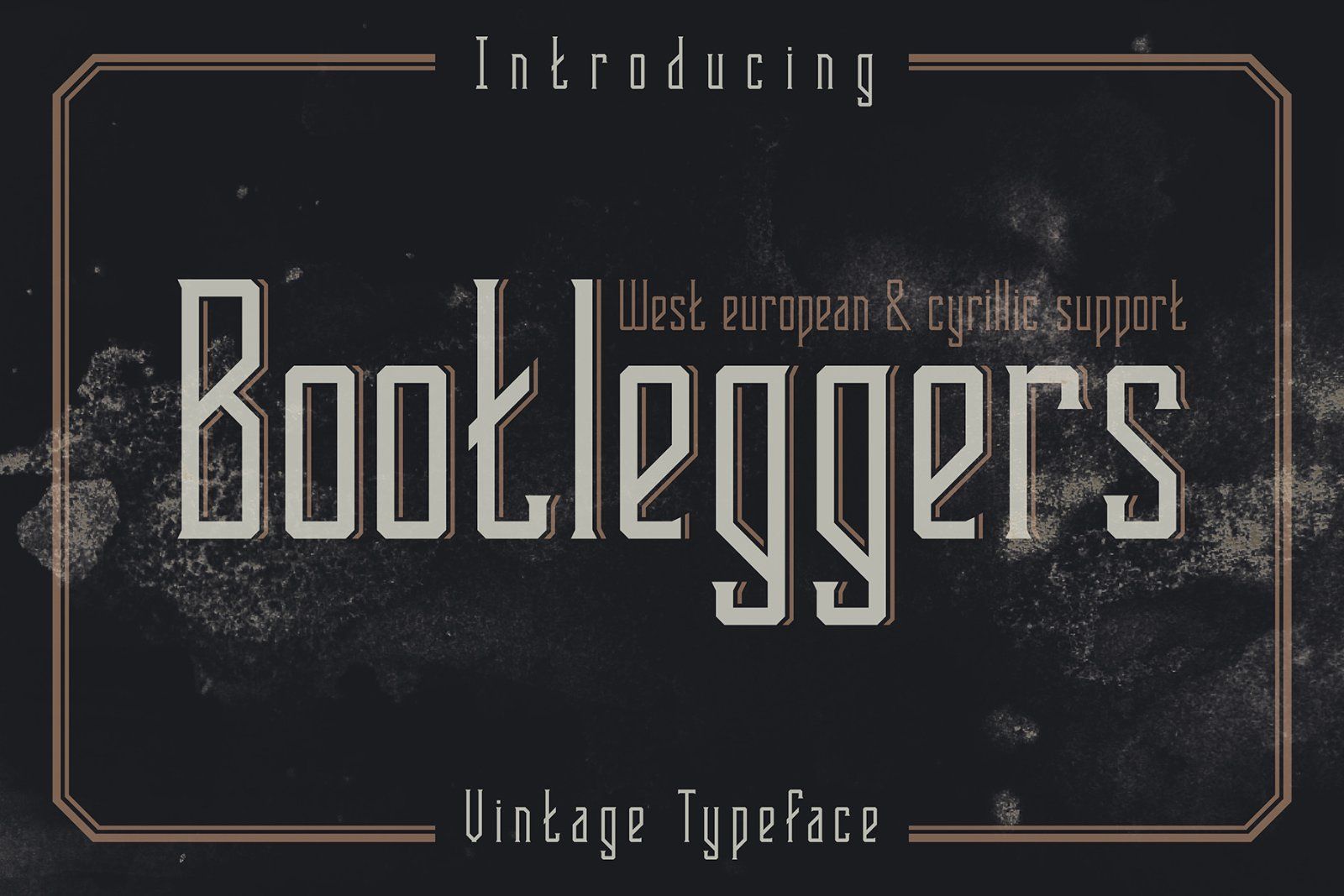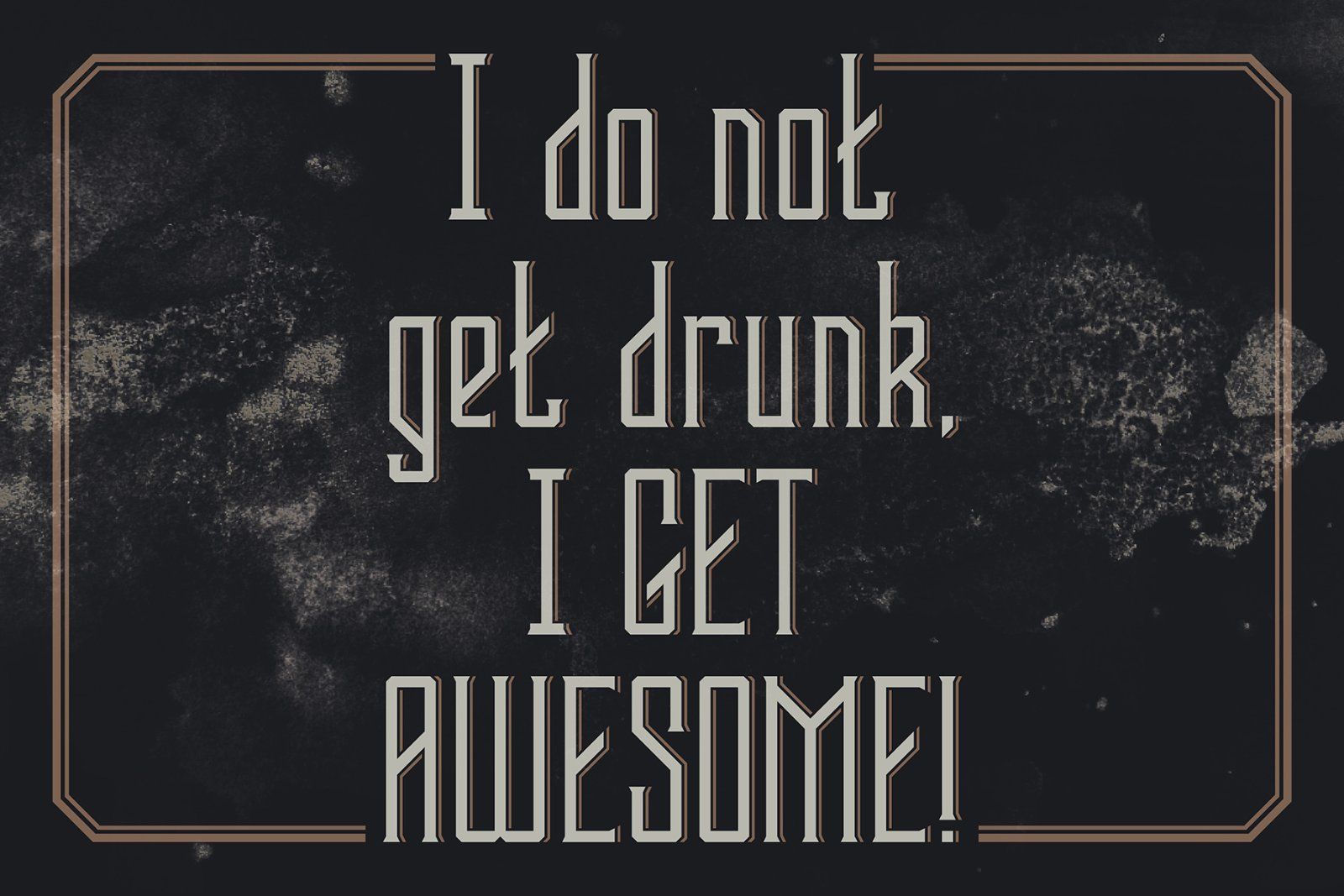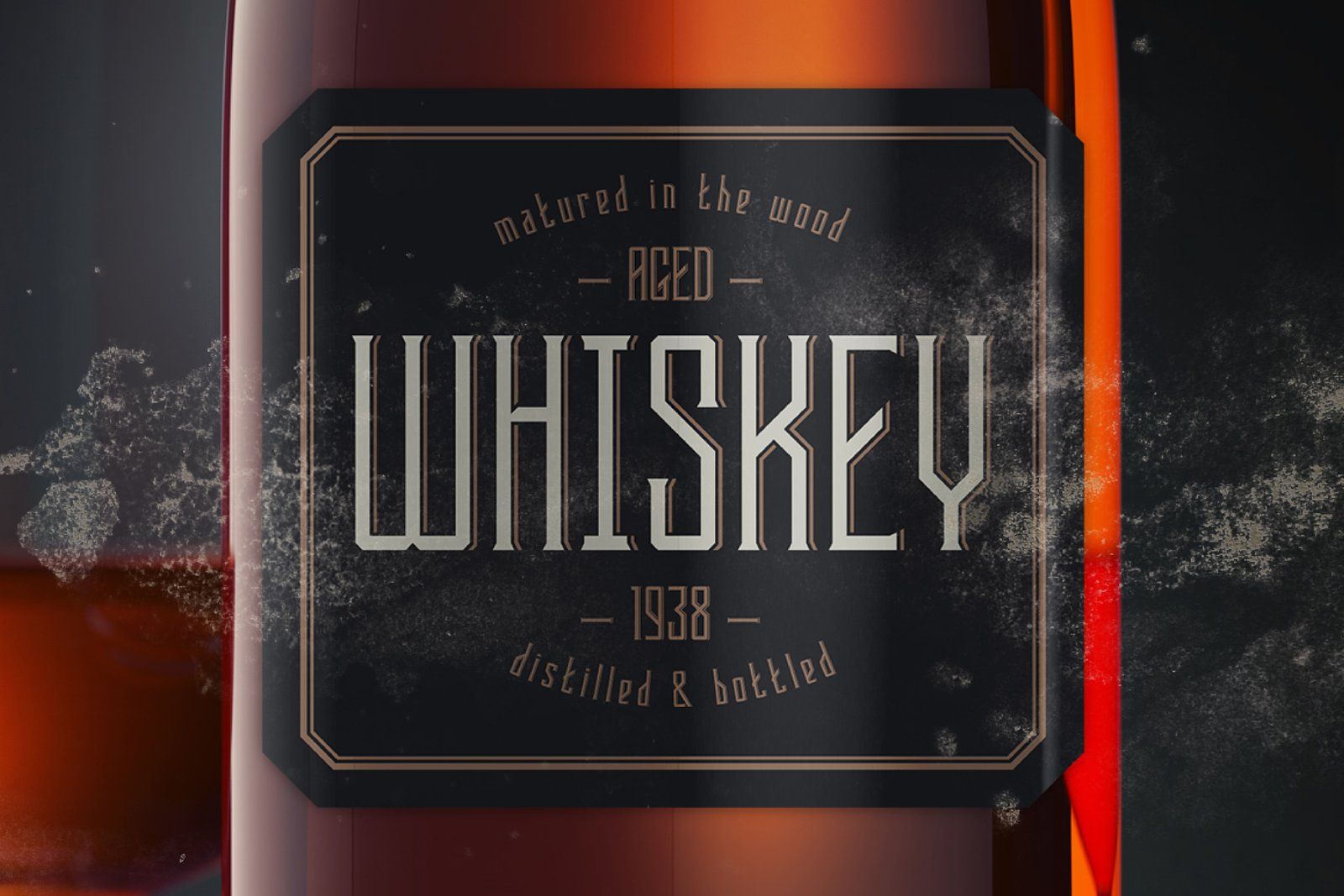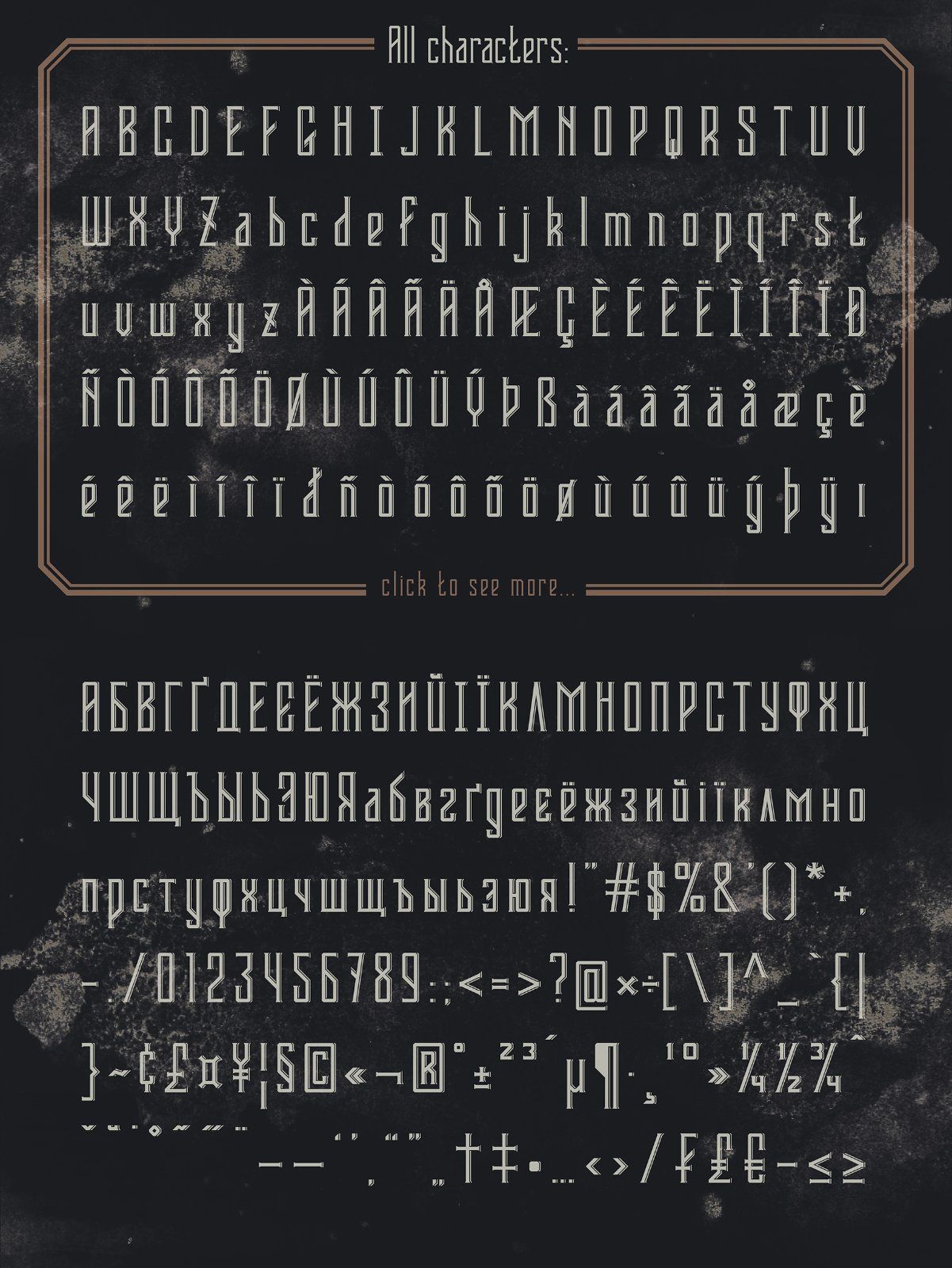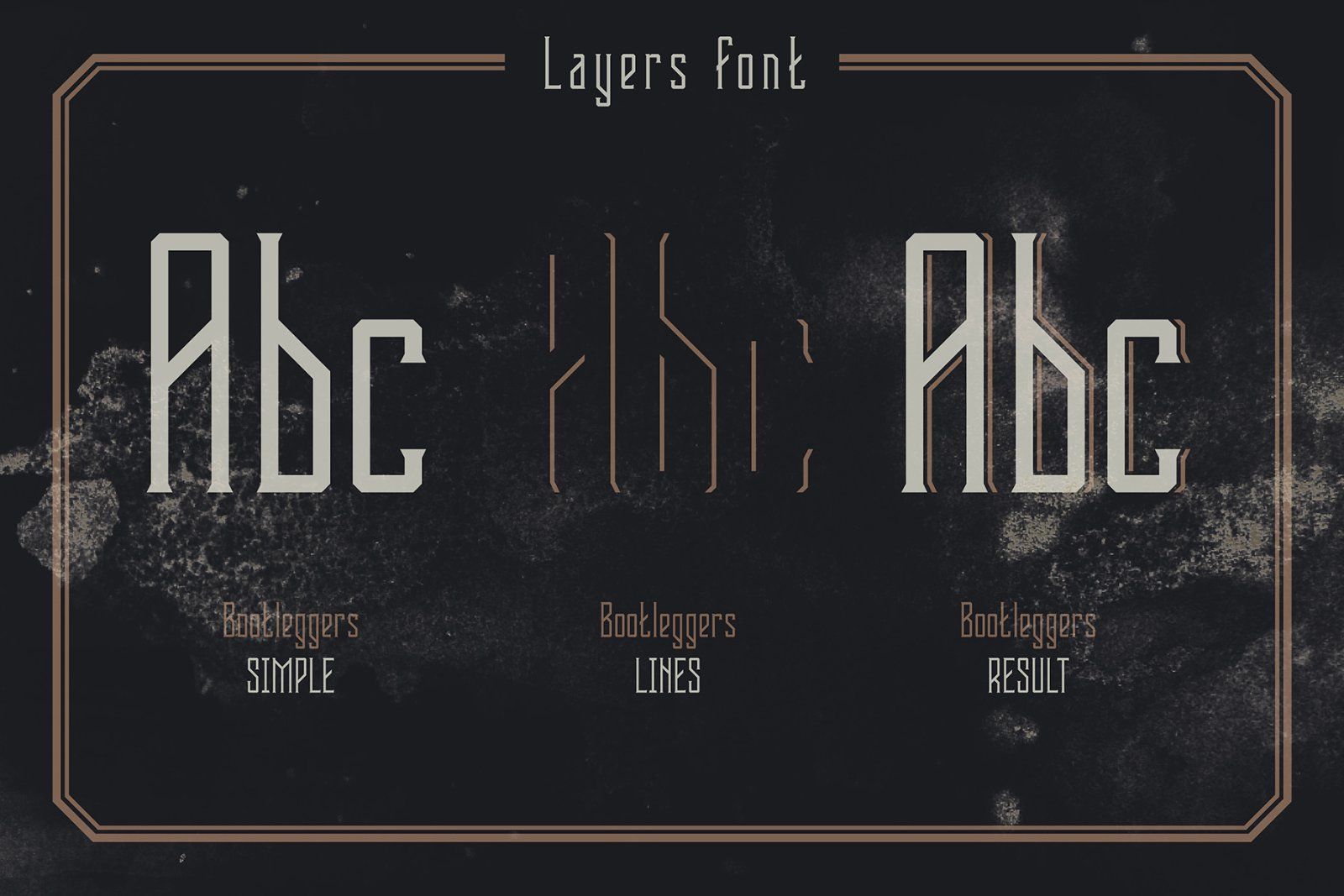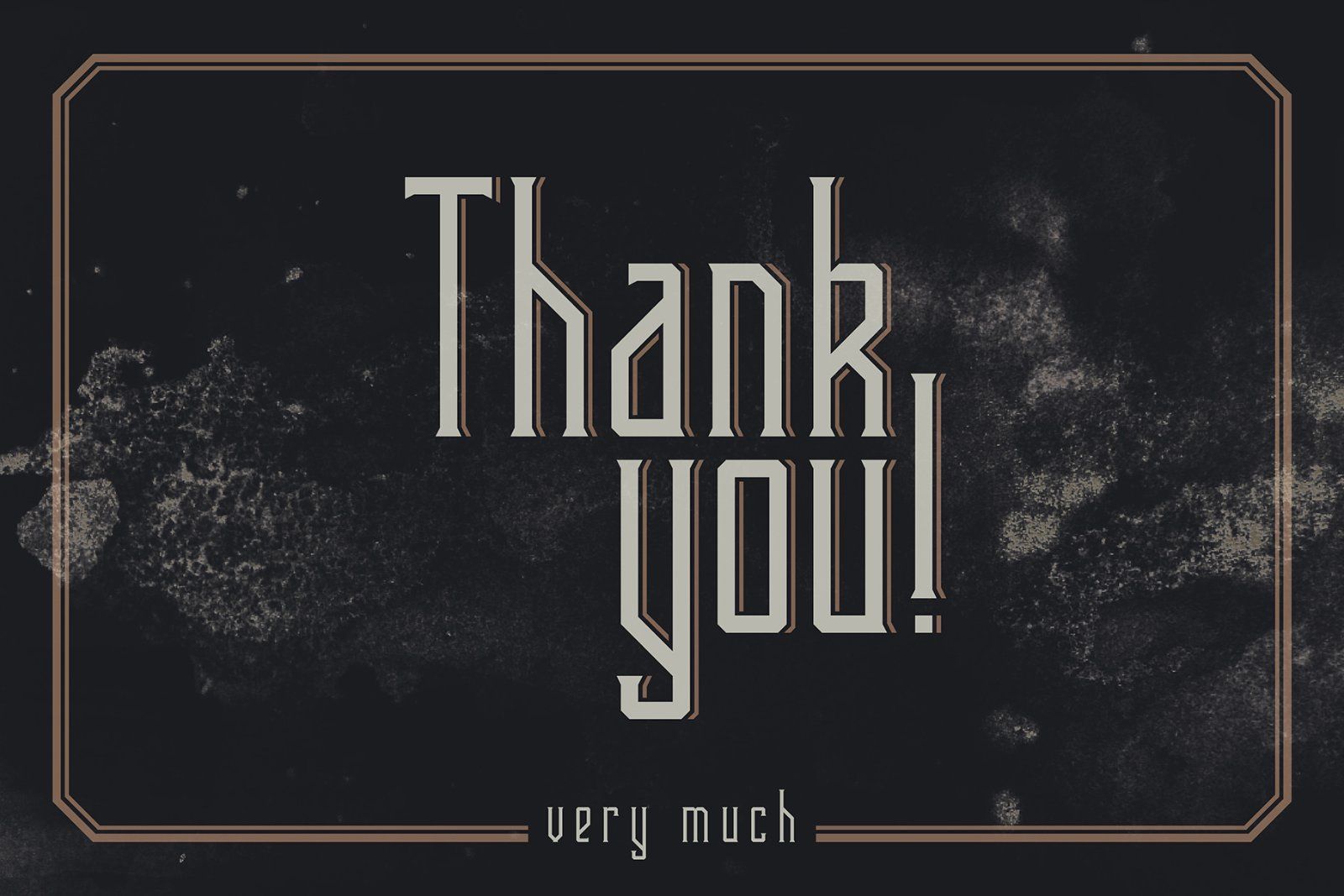
Hello! Introducing a vintage style font "Bootleggers". It's made of strong straight lines with tiny and accurate accent lines. It has a wide range of languages support, including West European, Cyrillic languages etc. (all available characters you can see on the 4th screenshot). There is also a separate font files for two font layers, for easy combining the styles.